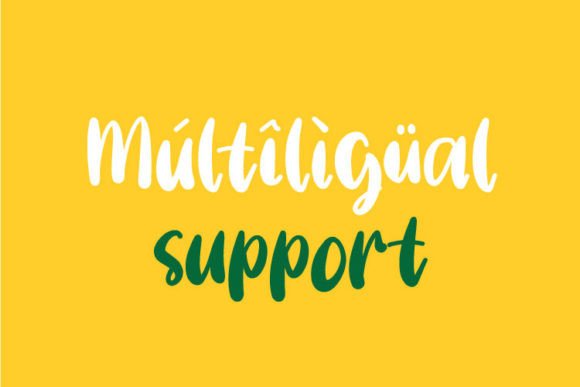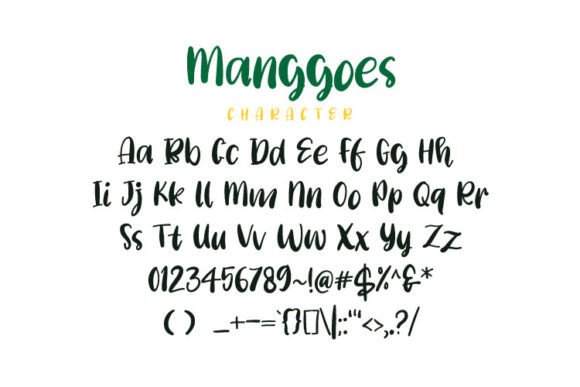
Introduction to Manggoes Font
Remember the moment when you stumbled upon the perfect font for your creative project? The one that makes your design stand out and gives it that personal touch? For designers, finding the right font can be a game-changer. It’s like discovering a hidden treasure that elevates your work to the next level.
One such treasure is the Manggoes Font, a clean, cute, and adaptable handwritten font that’s perfect for various designs. Its authentic vibe adds a realistic feel to your designs, making it a valuable resource for designers looking to create high-quality content. With its versatility, you can use it for a wide range of creative projects, from social media graphics to wedding invitations.
Key Features of Manggoes Font
- High-quality design resource for creative projects, featuring a unique and modern style.
- Comes with a transparent background, making it easy to integrate into various design elements.
- Includes a large character set, covering a wide range of languages and alphabets.
- Perfect for use in logo design, branding, and typography-based projects, where a modern and sleek look is desired.
Honest Review: Manggoes Font
I recently stumbled upon Manggoes Font and I must say, it’s been a game-changer for my creative project. As a designer, I’m always on the lookout for high-quality design resources that can elevate my work.
While the Manggoes Font is an excellent resource, I did encounter a few limitations. The font doesn’t support certain languages, which can be a issue for projects that require multilingual support.
Overall, I’m thoroughly impressed with the Manggoes Font. It’s a fantastic design resource that’s perfect for creative projects. The transparent background and free download option make it a breeze to work with. If you’re looking for a high-quality font, I highly recommend giving the Manggoes Font a try.
Tips for Getting the Most Out of Manggoes Font
For the best results, use the Manggoes Font in combination with a transparent background to create a clean and modern design. You can also experiment with different font sizes and colors to add visual interest to your project.